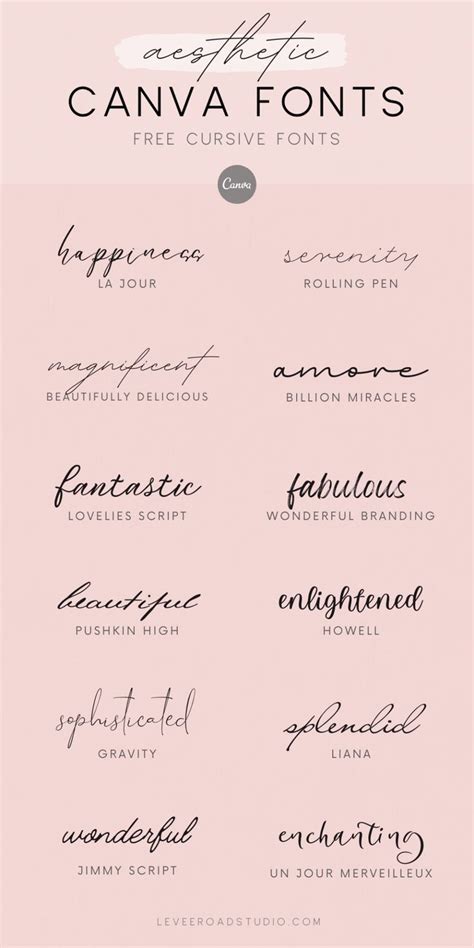
Hey guys! Ever wanted to add that perfect touch of elegance to your Canva designs with a beautiful cursive font? If you’re part of the oscbaseballsc community or just someone who loves a good handwritten style, you’re in the right place. Let’s dive into the world of cursive fonts on Canva and how you can make the most of them.
Why Cursive Fonts Matter
Cursive fonts bring a personal and stylish flair to any project. Unlike standard block fonts, cursive typefaces mimic handwriting, adding warmth and authenticity. For organizations like oscbaseballsc, using cursive fonts can create a sense of community and tradition. They’re perfect for invitations, logos, social media graphics, and anything that needs a human touch.
The Psychology of Cursive
Fonts, especially cursive fonts, have the power to evoke emotions and influence perceptions. Cursive fonts often convey sophistication, creativity, and personal connection. When used thoughtfully, they can enhance your message and make your designs more memorable. Think about wedding invitations, for instance. A flowing cursive font adds a touch of romance and elegance that a simple Arial font just can’t match. Similarly, for a baseball-focused group like oscbaseballsc, a well-chosen cursive font can add a vintage or classic feel to team merchandise or promotional materials, connecting with the history and tradition of the sport.
Versatility Across Projects
The versatility of cursive fonts extends across various design projects. Whether you’re working on branding materials, social media content, or even presentations, a cursive font can add that special something. For oscbaseballsc, consider using cursive fonts in team posters, fundraising event announcements, or even on the team website. The key is to use them strategically. Don’t overuse cursive fonts, as too much can make your design look cluttered and hard to read. Instead, use them sparingly to highlight important elements and create visual interest.
Balancing Readability and Style
While cursive fonts are beautiful, readability is crucial. Choose fonts that are easy to read, especially in smaller sizes. Avoid overly elaborate or decorative fonts that can be difficult to decipher. A good rule of thumb is to use simpler cursive fonts for body text and more decorative ones for headings or titles. Always test your designs on different devices and screen sizes to ensure the font remains legible. For oscbaseballsc, this means considering how the font will look on everything from large banners to small social media posts.
Finding the Right Cursive Fonts in Canva
Canva offers a treasure trove of fonts, including many stunning cursive options. But with so many choices, how do you find the perfect one? Here’s a step-by-step guide:
Step 3: Browse Canva’s Font Library
Now comes the fun part – choosing your cursive font! With your text selected, go to the font dropdown menu at the top of the screen. This will open Canva’s extensive font library. You can scroll through the list to browse all the available fonts, or you can use the search bar to find something specific. To narrow down your search, type in keywords like “cursive,” “script,” or “handwritten.” This will filter the results to show you only cursive-style fonts.
Step 4: Filter and Search for Cursive Fonts
Canva’s search and filter options are your best friends when looking for the ideal cursive font. Use the search bar to type in terms like “script,” “handwritten,” or even specific styles like “vintage cursive” or “modern calligraphy.” The filters allow you to sort fonts by style, popularity, and even language. Experiment with different search terms to discover hidden gems in Canva’s font library. For oscbaseballsc, a search for “sports script” or “vintage baseball font” might yield some interesting results.
Step 5: Preview and Select Your Font
As you scroll through the font options, Canva will show you a preview of how each font looks with your text. This is super helpful for getting a feel for which fonts work best with your design. Pay attention to the readability and overall aesthetic of each font. Does it fit the tone and style of your project? Is it easy to read, even in smaller sizes? Once you find a font you love, simply click on it to apply it to your selected text. Don’t be afraid to try out a few different fonts before making your final decision. The goal is to find a font that enhances your design and effectively communicates your message. For oscbaseballsc, think about how the font reflects the team’s spirit and identity.